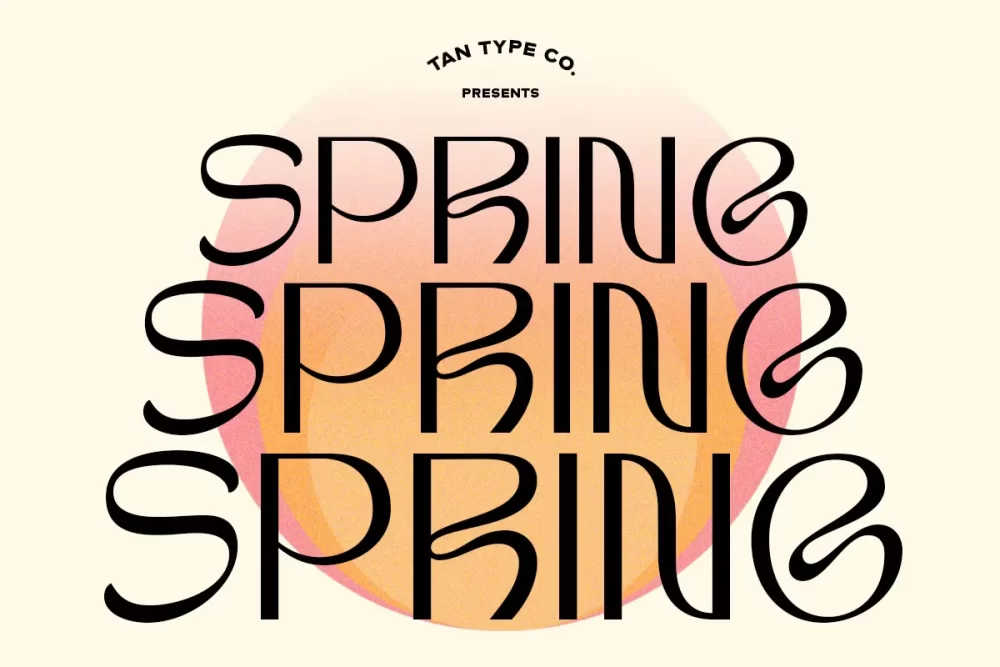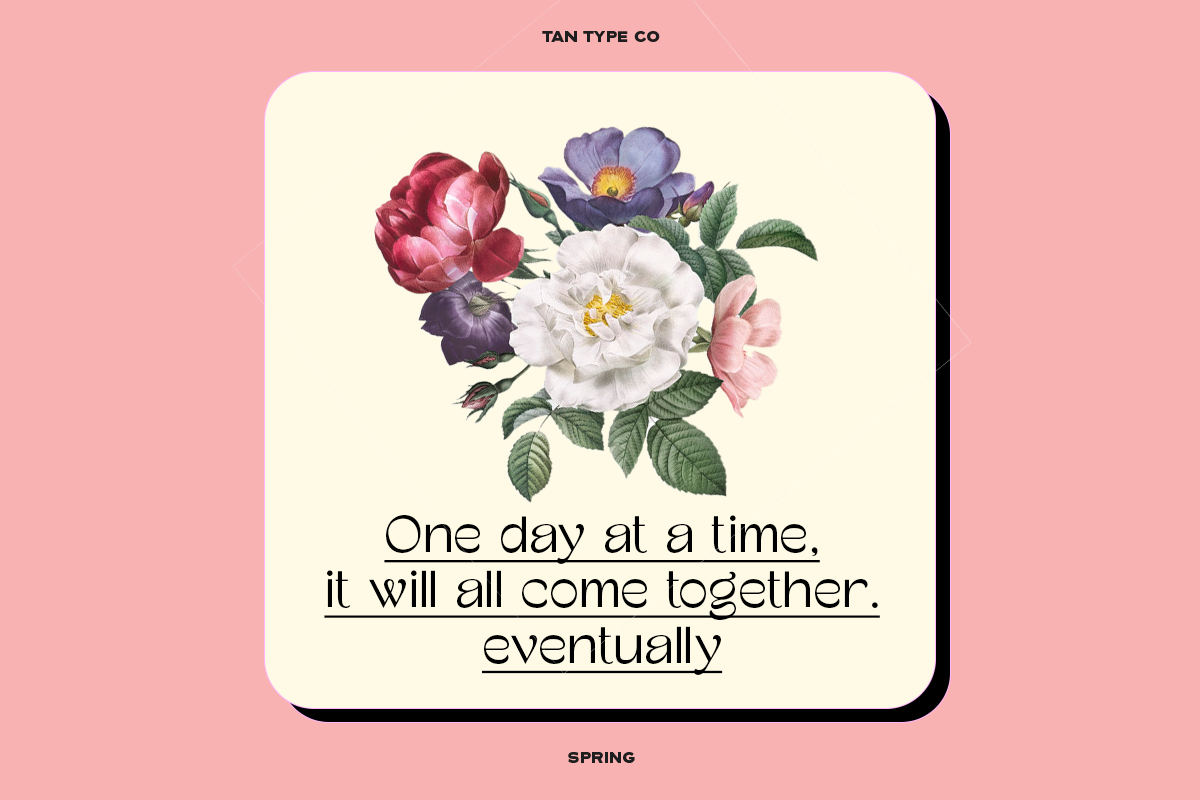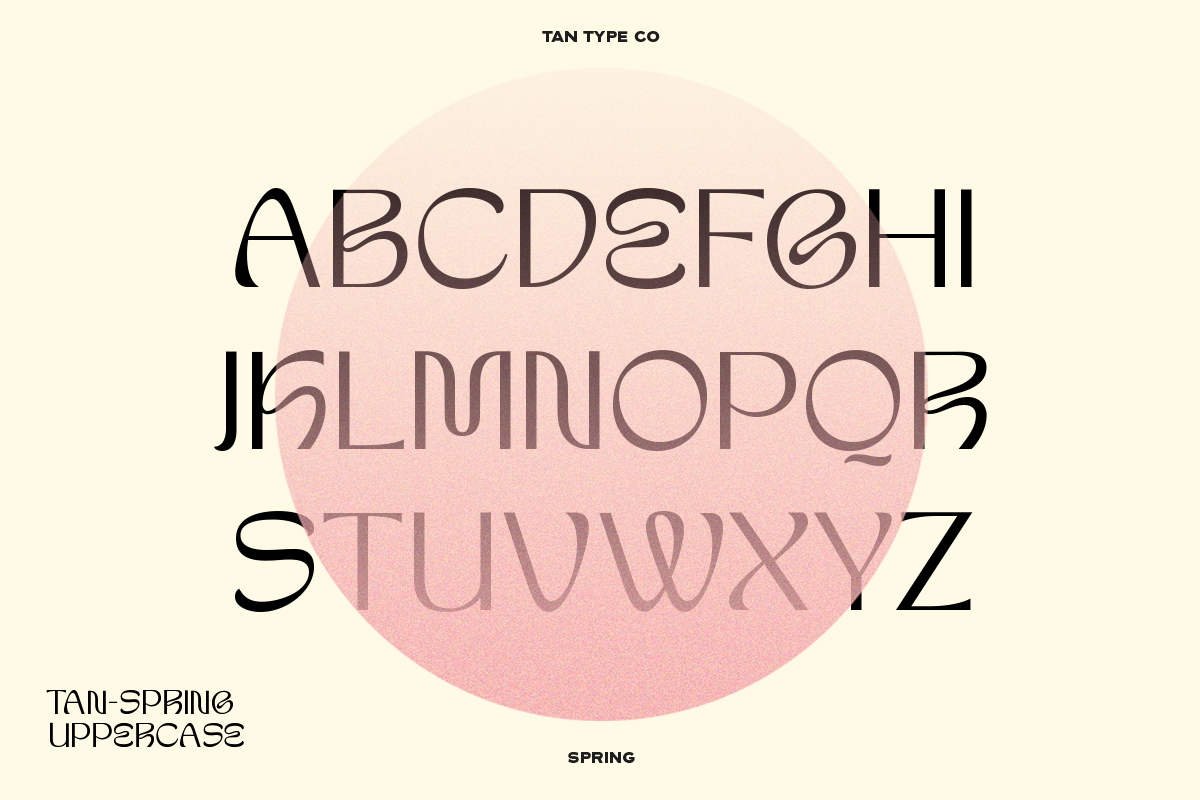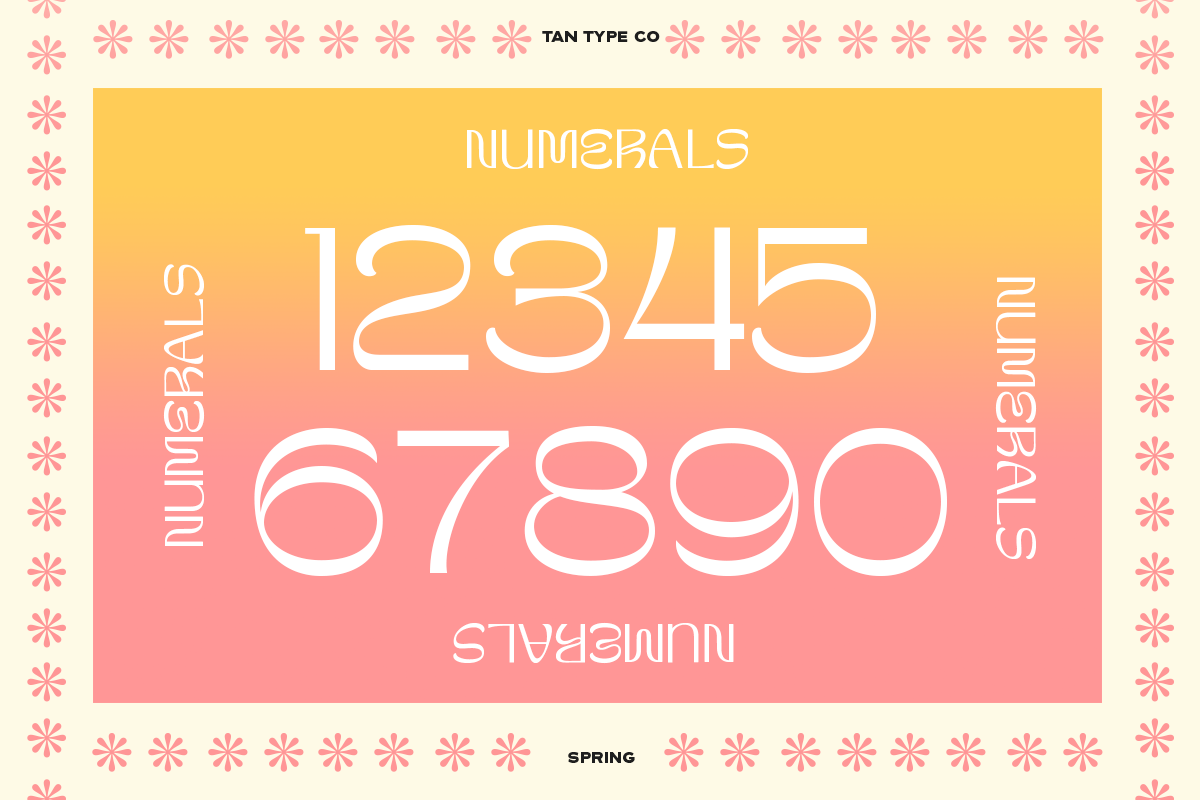
Tan – Spring Font
Tan - Spring Font
Tan – Spring is a retro-inspired display typeface. It has clean shapes with a hint of groove, bringing a mid-century feel to it.